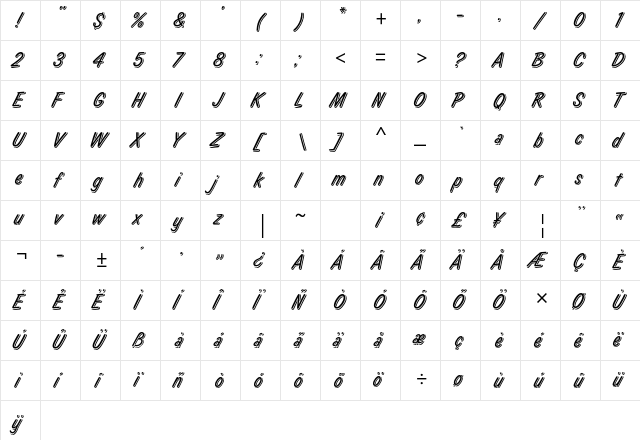
Laura Std Regular
| Designer | Tony Watson |
Design Context for Laura Std Typeface
Laura Std is a composed and adaptable typeface that performs quietly and consistently across a wide range of design contexts.